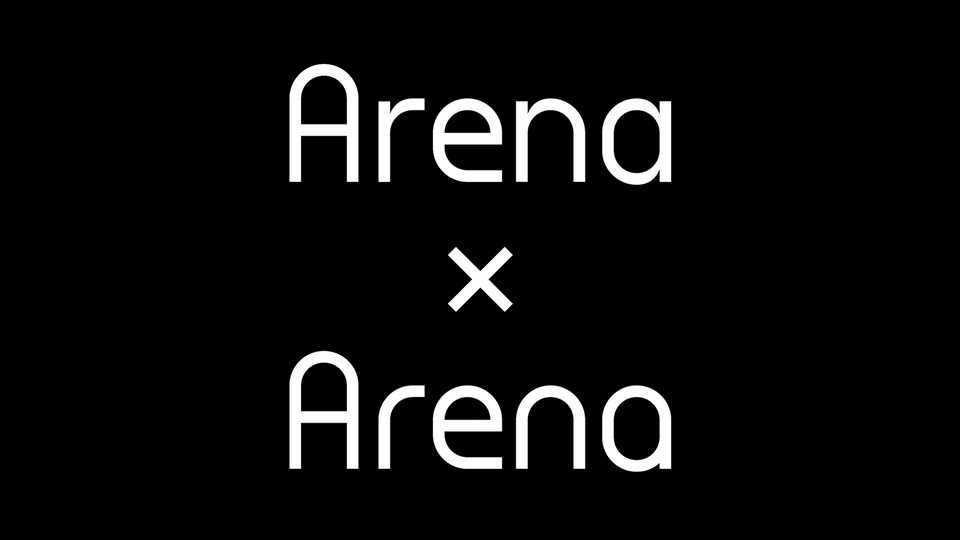
Download Arena font, a geometric sans serif typeface inspired by Architype Bayer, Are.na, and heat transfer letterforms and numerals used for athletic kits.
Designer: Jonathan Maghen